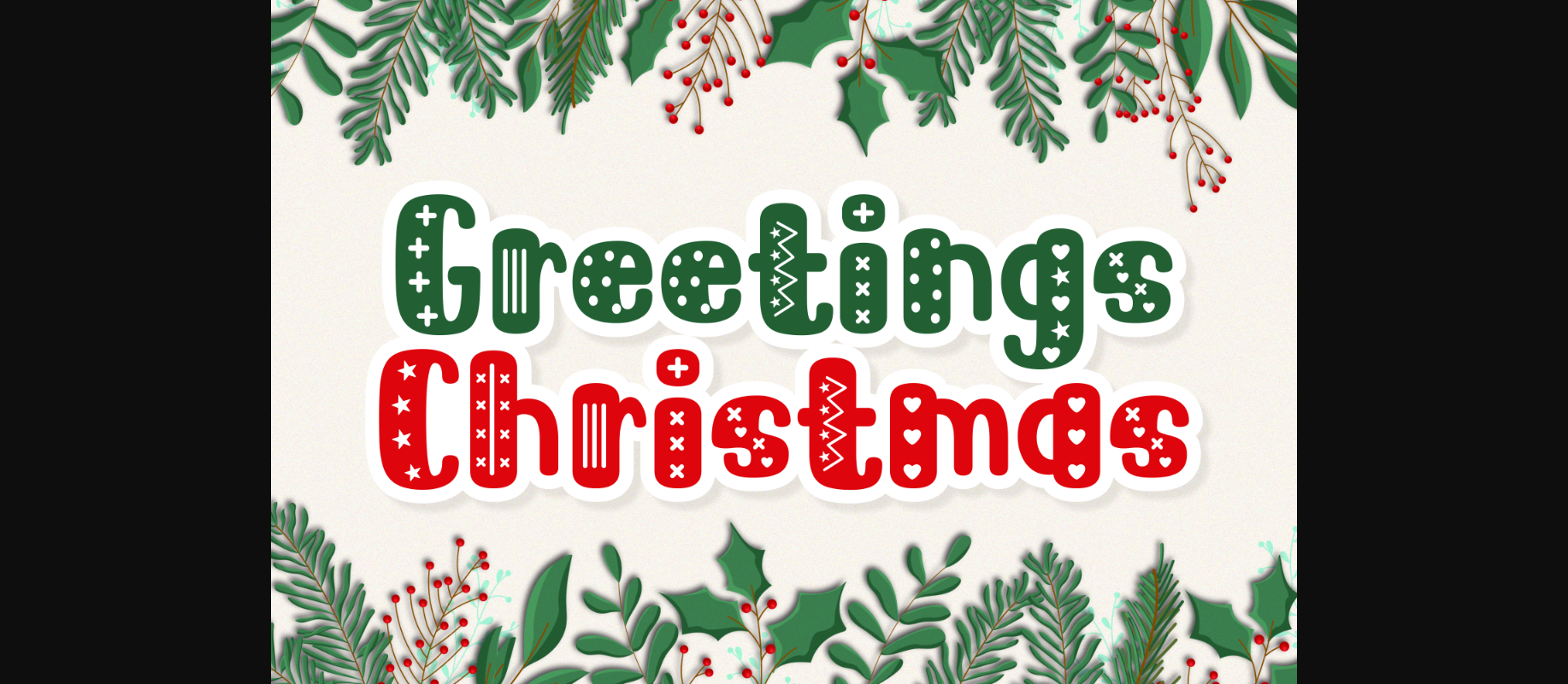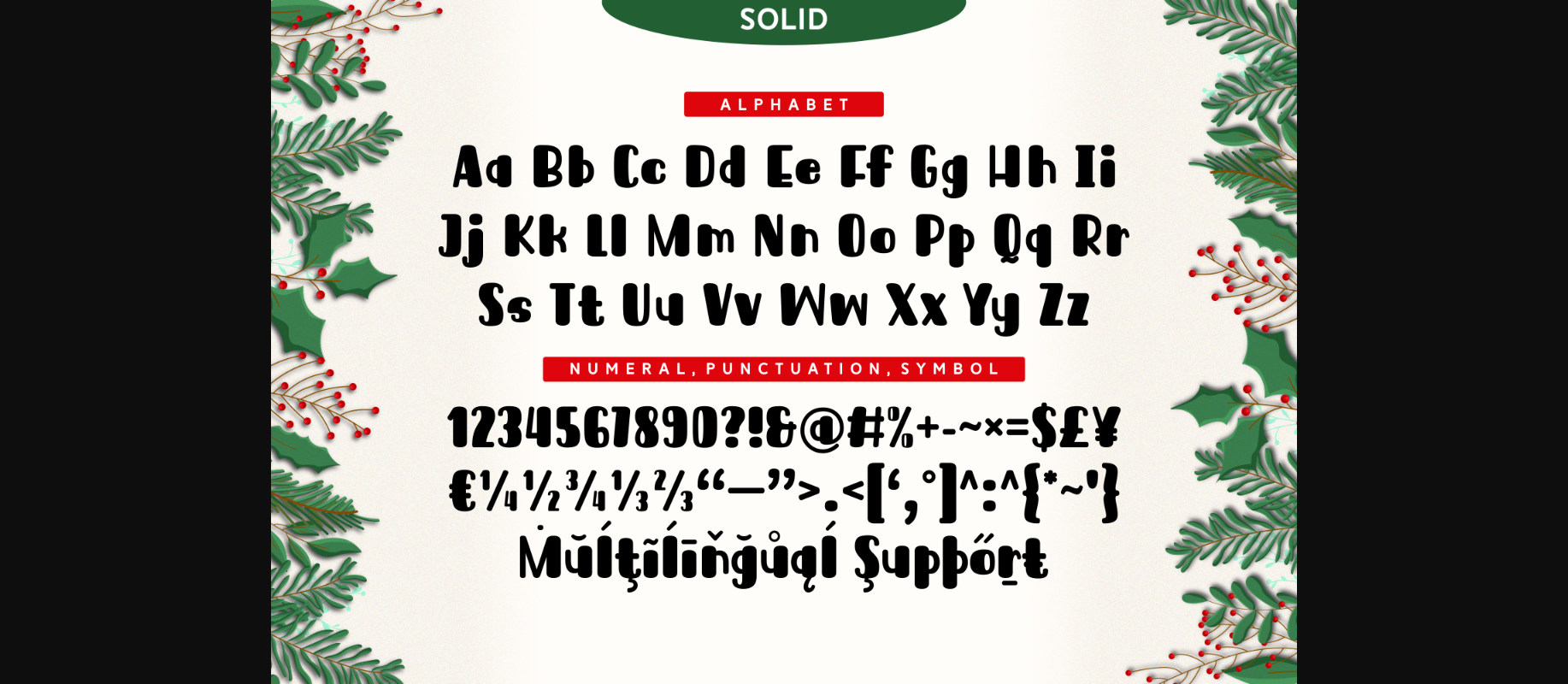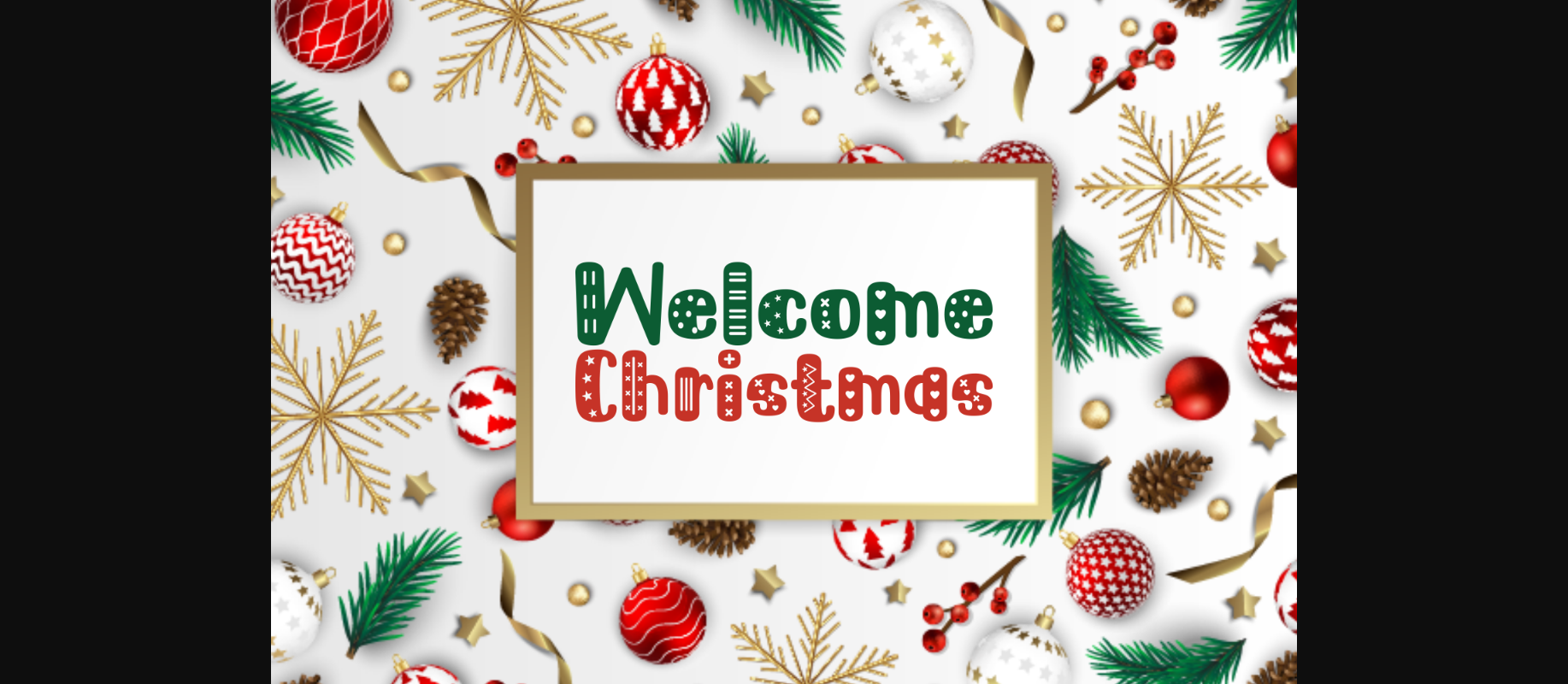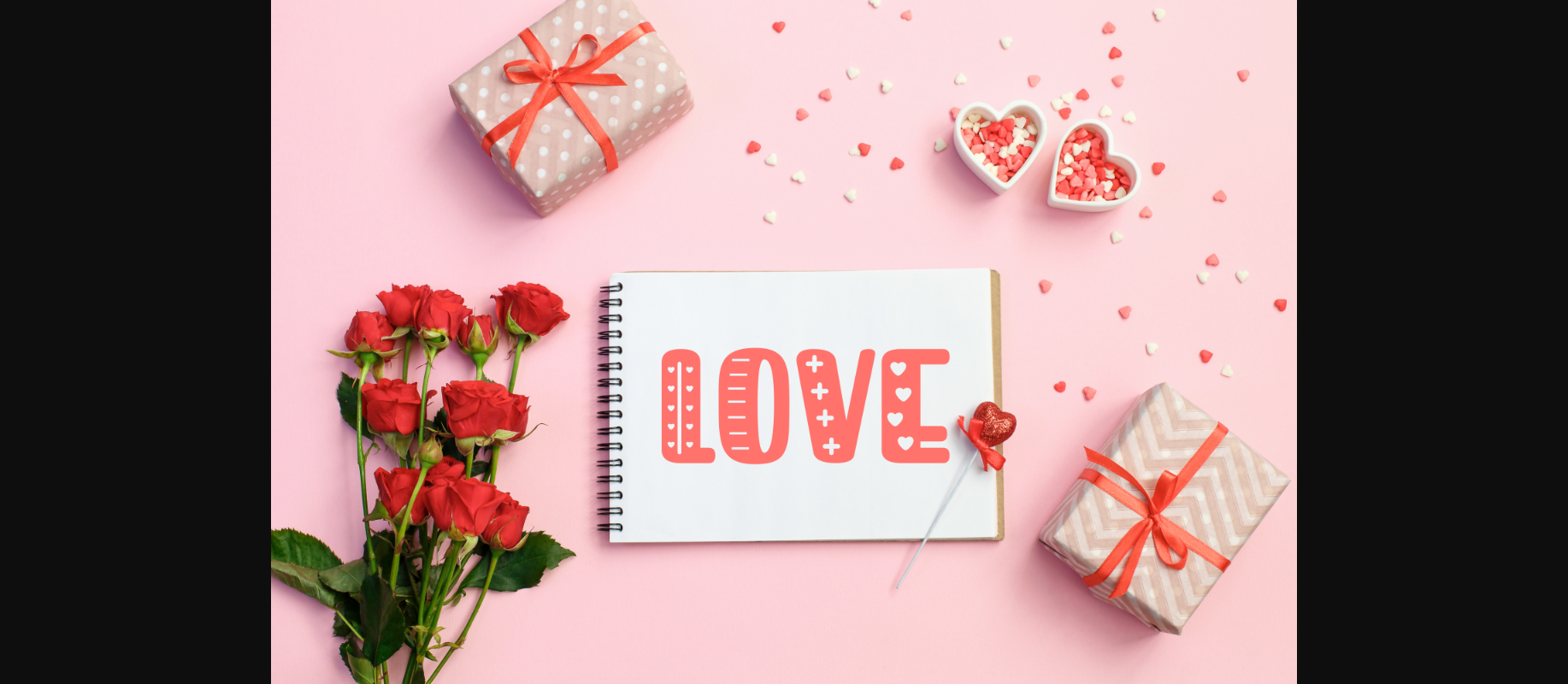
About Greetings Christmas Font
Greetings Christmas is a chubby and festive decorative font. These lovely characters are decorated with cute doodle elements such as stars, hearts, stripes, and dots. Use them to create celebratory designs on a cheerful note!